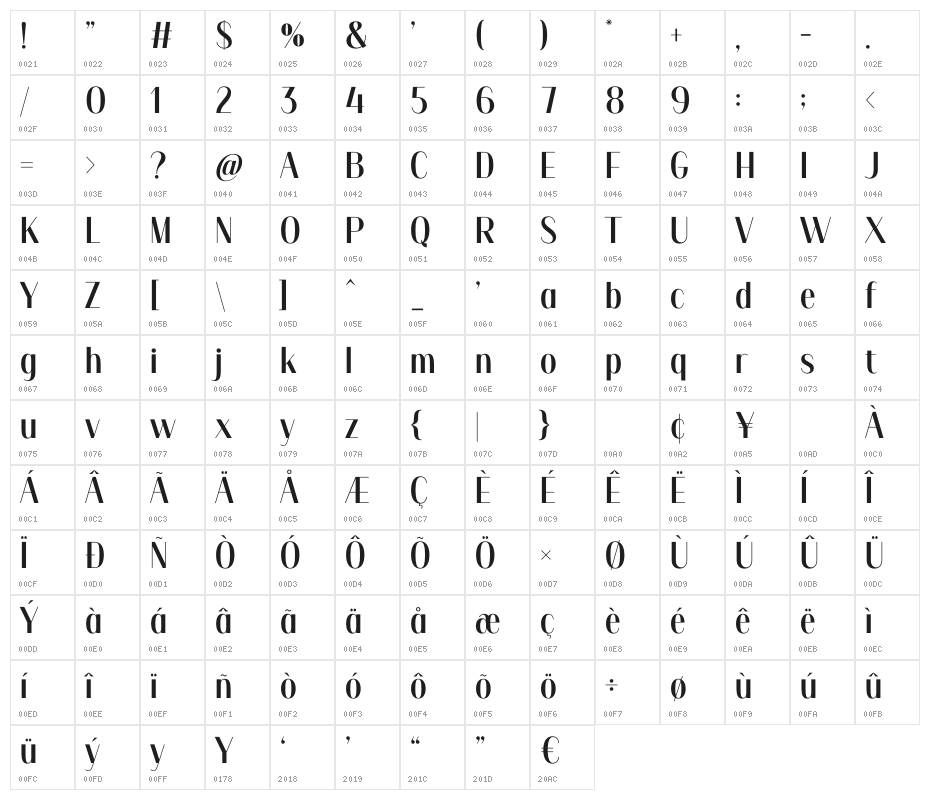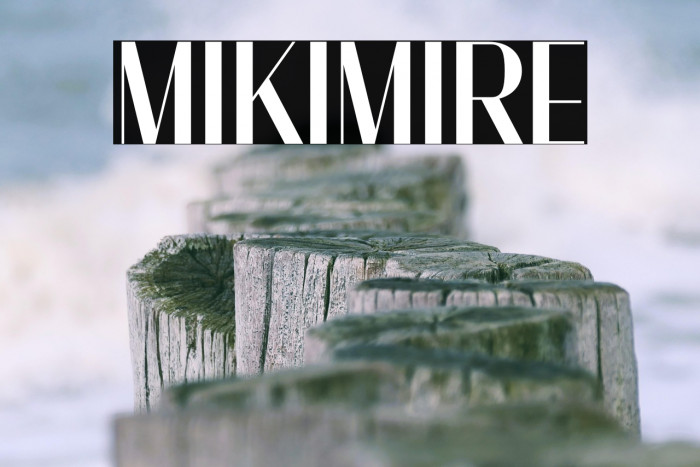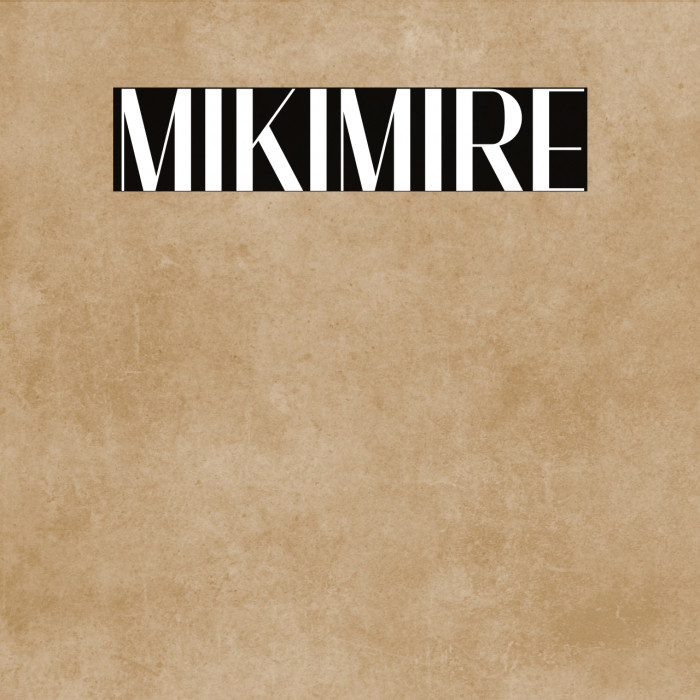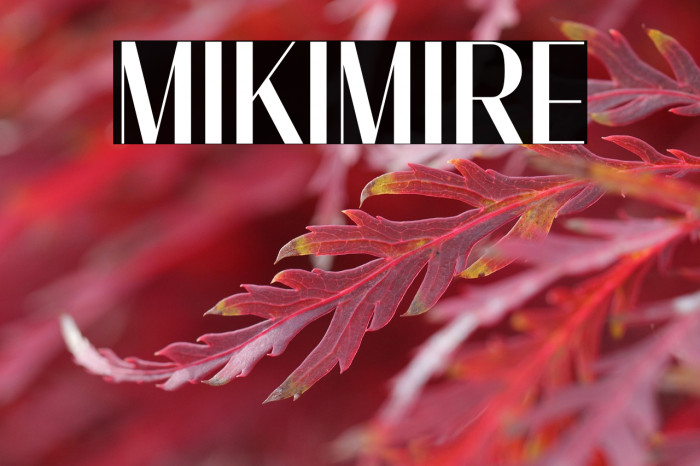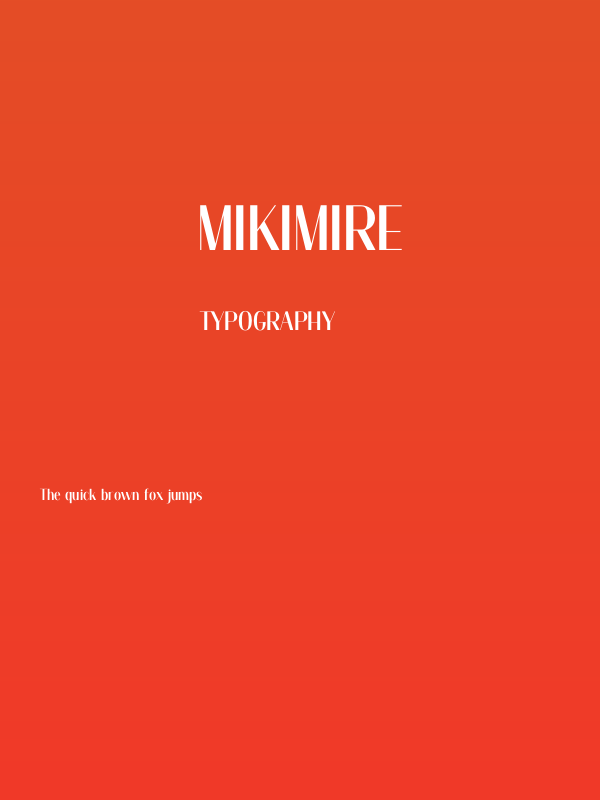
MIKIMIRE Font
MIKIMIRE Description
This font exhibits a striking contrast between thick and thin strokes, creating a dynamic and elegant appearance. The uppercase letters are tall and slender, with a refined and sophisticated look. The lowercase letters maintain a consistent style, offering a smooth and cohesive flow. The numerals are distinct and clear, ensuring readability. Special characters are designed with the same attention to detail, enhancing the font's versatility. Overall, the font combines modern aesthetics with a touch of classic elegance, making it suitable for a variety of design applications.
| Proposed Projects | Ideal for luxury branding, editorial design, fashion magazines, and high-end product packaging. |